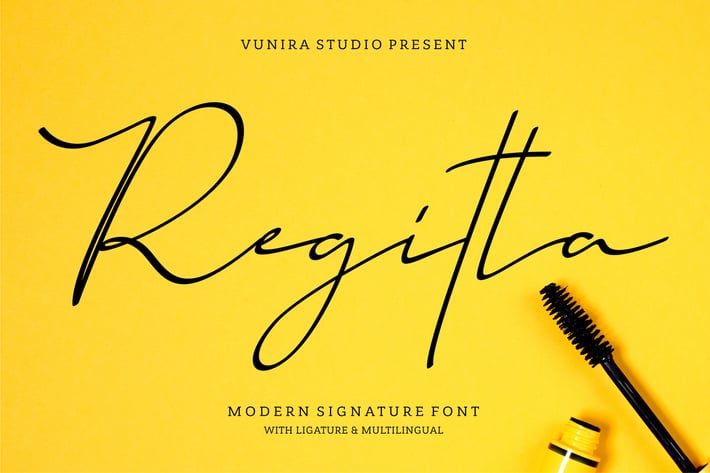
Regitta | Modern Signature Font
Regitta | Modern Signature Font with a calligraphy style, So beautiful on invitation like greeting cards, branding materials, business cards, quotes, posters, and more!